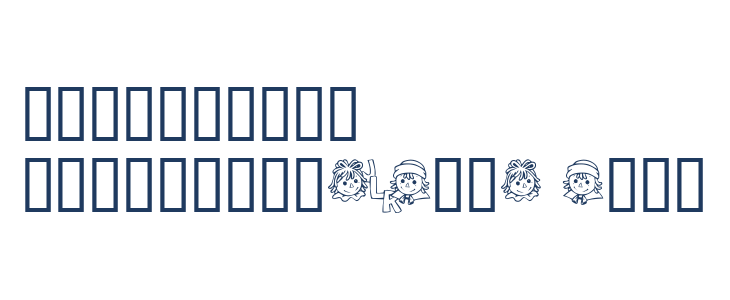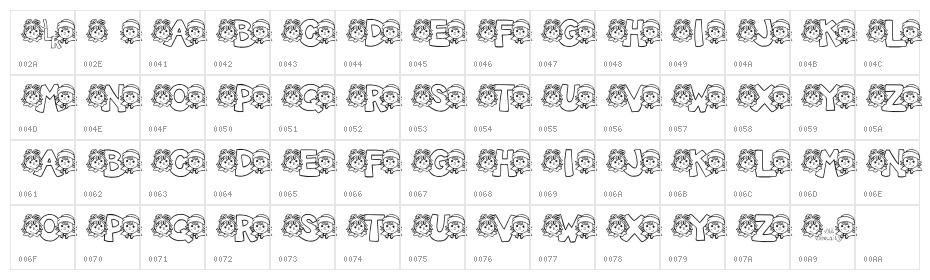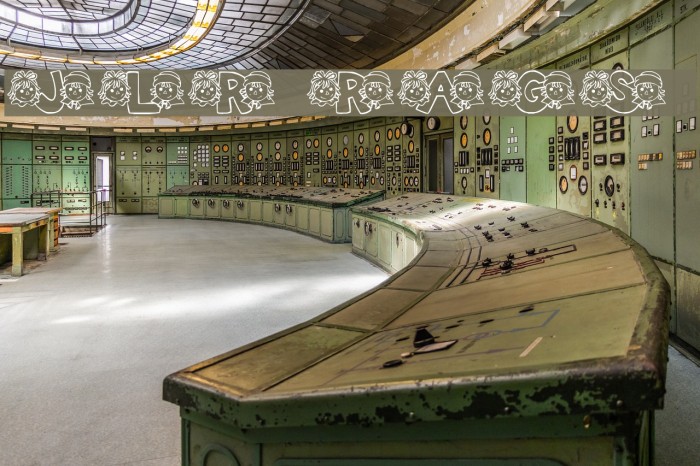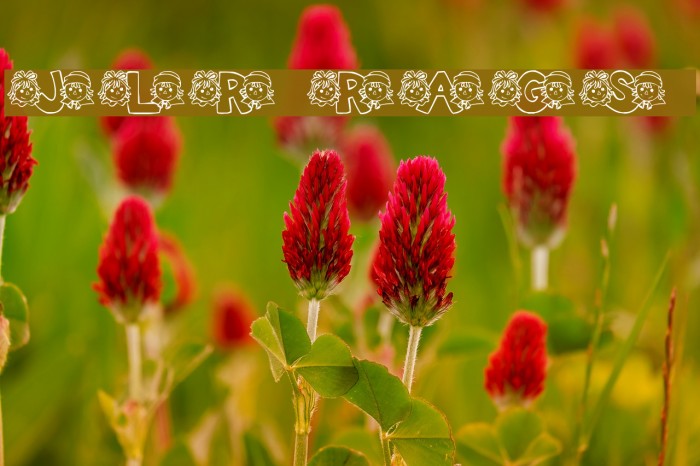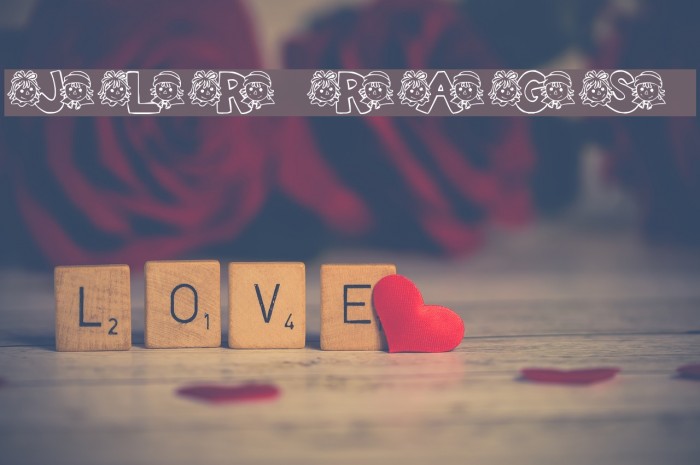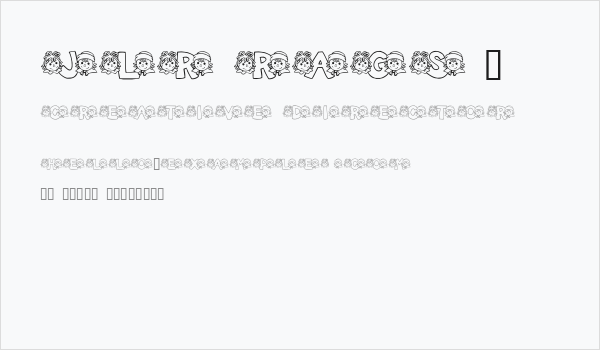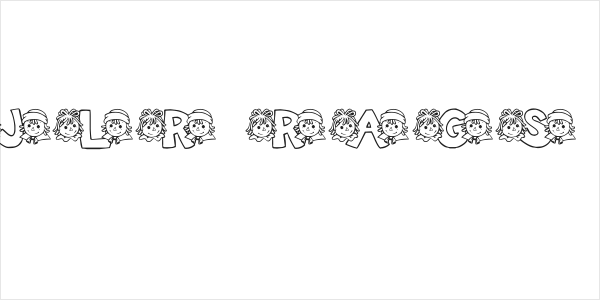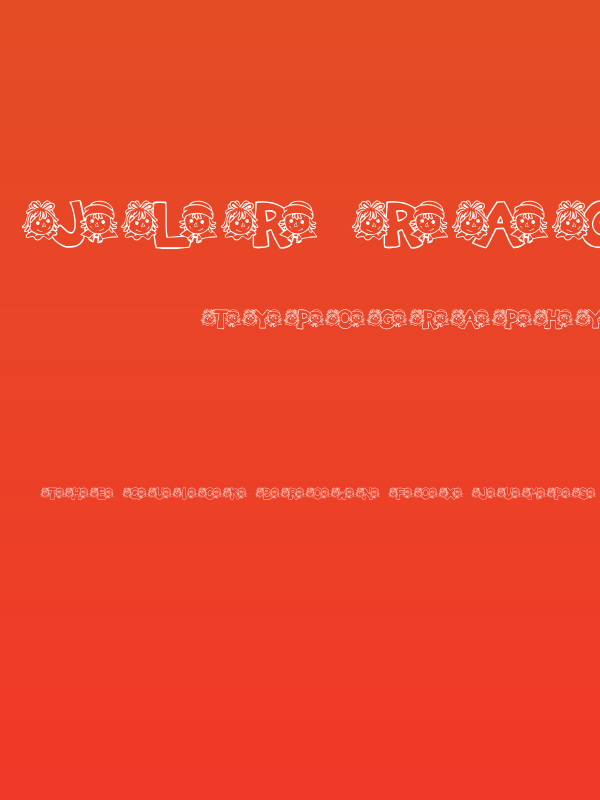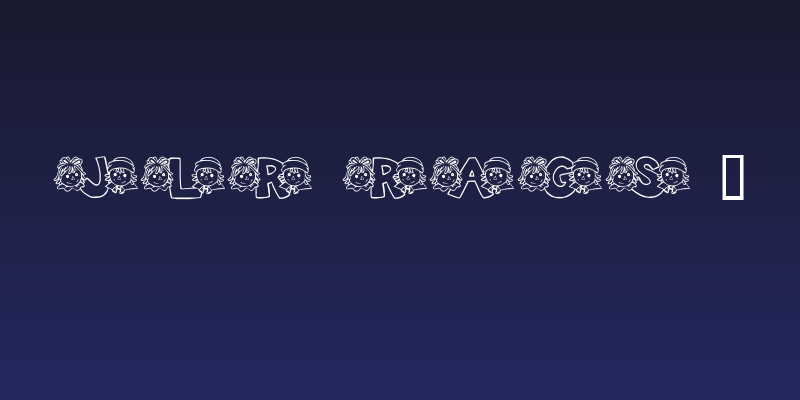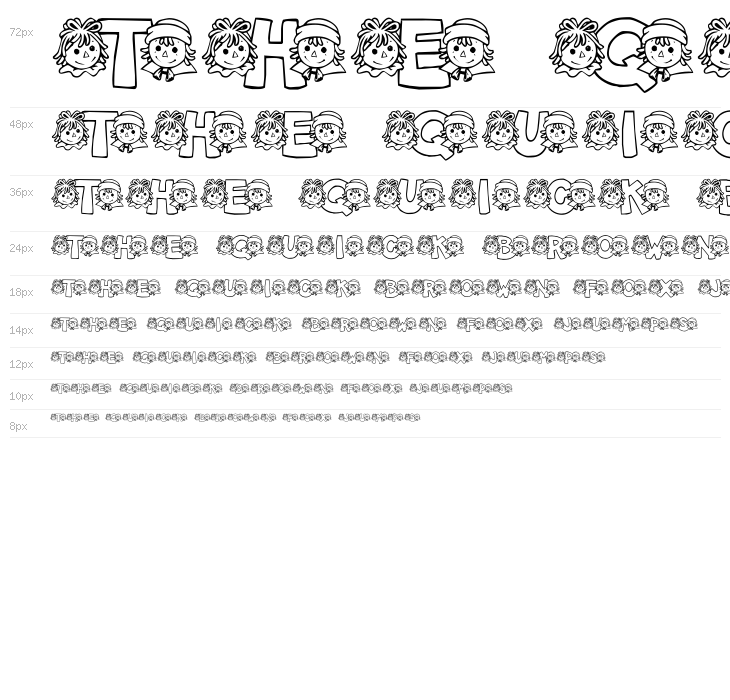
JLR Rags 2 Font
JLR Rags 2 Description
This playful and whimsical font features characters adorned with charming, cartoon-like illustrations of rag dolls. Each letter is encased in a decorative border, adding a unique and artistic flair. The font combines a sense of nostalgia with a fun, childlike appeal, making it ideal for projects that require a touch of creativity and imagination. The characters are bold and easily recognizable, with a consistent style throughout the alphabet. The decorative elements do not overpower the letters, ensuring readability while maintaining a distinctive visual appeal.
| Overall Style | Playful, Whimsical |
| Use Case | Headlines, Logos, Creative projects |
| Proposed Projects | Ideal for children's book covers, playful invitations, educational materials, and creative branding projects. |